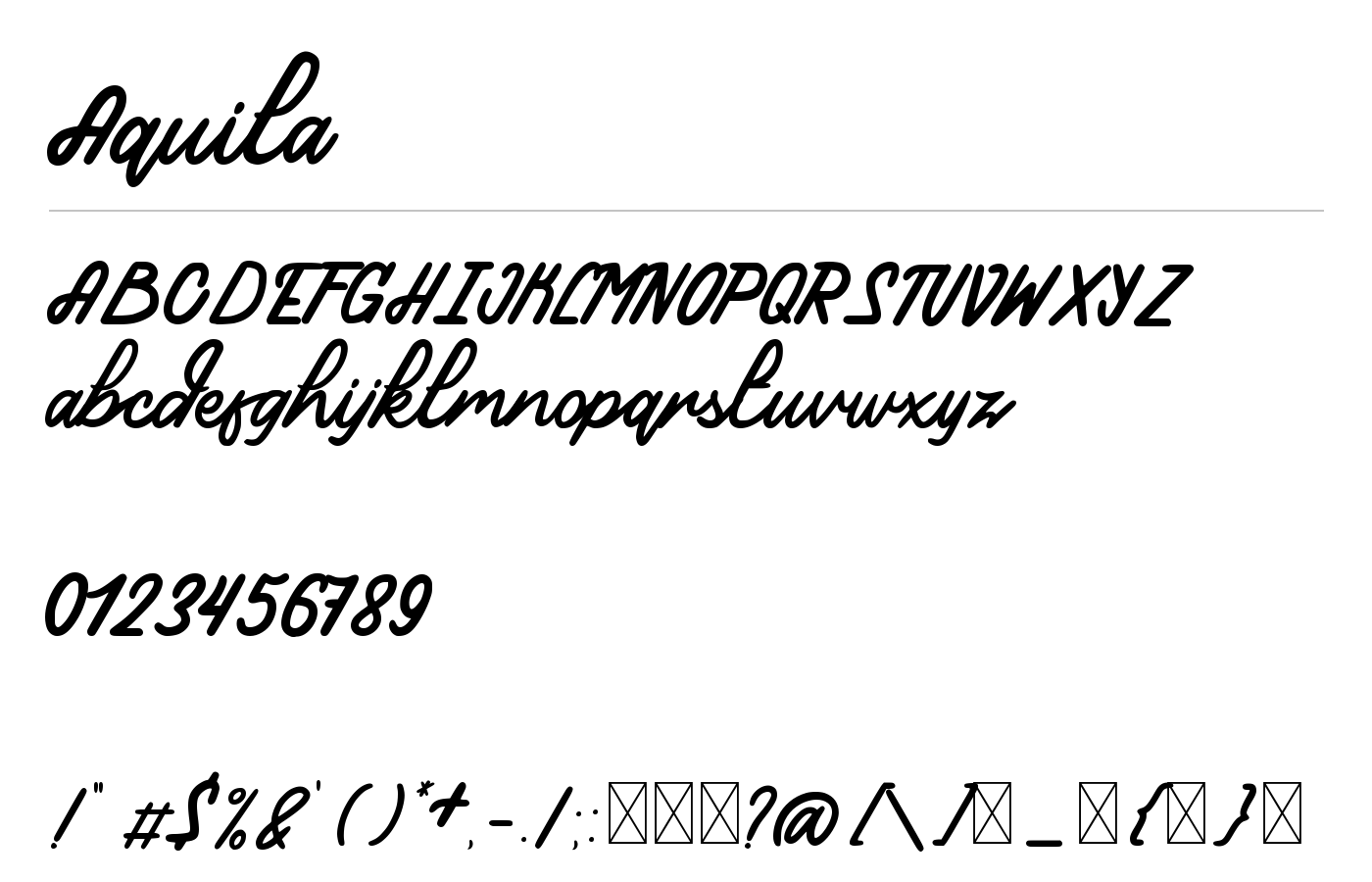
Aquila is a lively script font characterized by its flowing, connected strokes that offer a casual yet elegant hand-lettered feel. With its moderate contrast and slightly condensed letterforms, it captures a friendly and approachable personality, ideal for branding, invitations, and creative projects that want a personal touch. This font works best in headlines and logos where warmth and individuality are desired.
Aquila Font